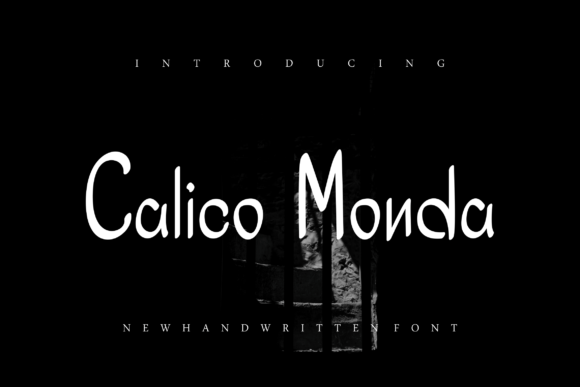
The Ultimate Guide to Calico Monda Font: A Bold and Authentic Handwritten Style
I’ll never forget the design project that led me to discover the Calico Monda font. I was working on a branding project for a trendy new coffee shop, and I was struggling to find the perfect font to capture their playful, yet sophisticated vibe. That’s when I stumbled upon Calico Monda, and it instantly became the star of the show. In this article, I’ll share my love for this bold and authentic handwritten font, its features, and how to make the most of it in your designs.
An Honest Review of Calico Monda Font
What I Love About Calico Monda ✨
- 💥 **Bold and eye-catching**: Calico Monda is a statement font that grabs attention and makes a lasting impression.
- ✅ **Authentic handwritten feel**: The font’s imperfections and quirks give it a genuine, hand-crafted look that’s perfect for brands wanting to stand out.
- 🎨 **Versatile**: Calico Monda works beautifully in a wide range of contexts, from logos and t-shirts to esports and more.
- 👍 **Easy to read**: Despite its bold nature, Calico Monda remains surprisingly legible, making it perfect for headlines and short paragraphs.
While Calico Monda is an amazing font, it’s not without its limitations. For example:
- ⚠️ **Limited use in body text**: Due to its bold nature, Calico Monda might not be the best choice for long blocks of text. Instead, use it for headlines, titles, or short paragraphs.
- ⚠️ **Some characters may require manual kerning**: As with any font, you might need to adjust the kerning for certain character combinations to achieve optimal results.
A Practical Guide to Using Calico Monda Font
- Explore OpenType features, such as ligatures and swashes, to add more flair to your text.
The Backstory Behind Calico Monda
Calico Monda was designed by a talented type designer who wanted to create a font that captured the essence of handwritten notes and authentic street art. Inspired by the colorful streets of urban landscapes, Calico Monda was crafted to bring a touch of personality and whimsy to any design project.
Q: What is the best use for Calico Monda font?
A: Calico Monda excels in branding projects, logos, t-shirt printing, esports, and more. Its bold and authentic handwritten style makes it perfect for headlines, titles, and short paragraphs.
Q: Is Calico Monda a difficult font to read?
A: Despite its bold nature, Calico Monda remains surprisingly legible. However, it’s best suited for short texts, like headlines or titles, rather than long blocks of body text.